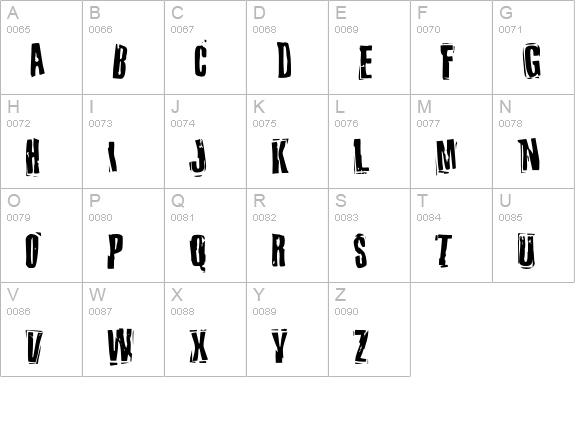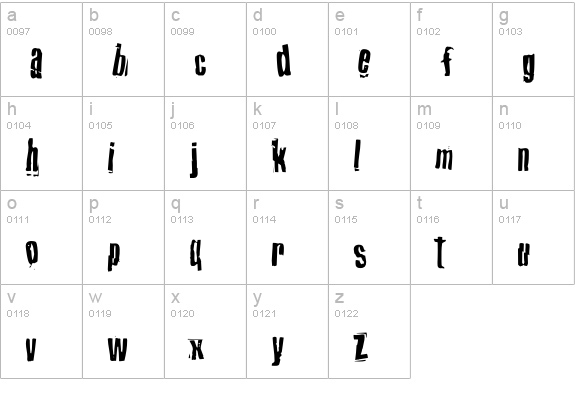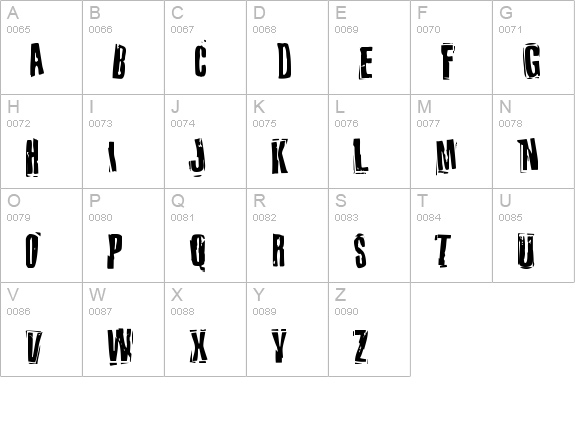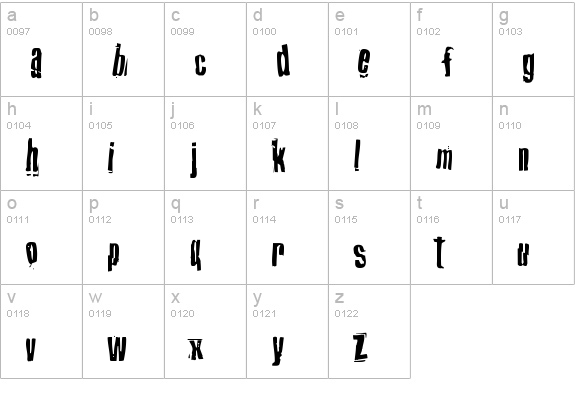
Lunatic Font Details
Lunatic font is a whimsical and playful typeface that is sure to add a touch of creativity to any design project. With its quirky and unique appearance, Lunatic font is perfect for use in a variety of applications, from branding and packaging to posters and social media graphics. What sets Lunatic font apart is its free-spirited charm and eye-catching design elements that make it stand out from the crowd. The irregular shapes and bold strokes of this font give it a dynamic and energetic feel, making it ideal for projects that require a touch of spontaneity and originality. Best of all, Lunatic font is available for free download at FontsMarket.com, making it accessible to anyone looking to add a touch of fun and personality to their designs. Whether you're a seasoned designer or just starting out, Lunatic font is a versatile and exciting choice that is sure to make a statement.